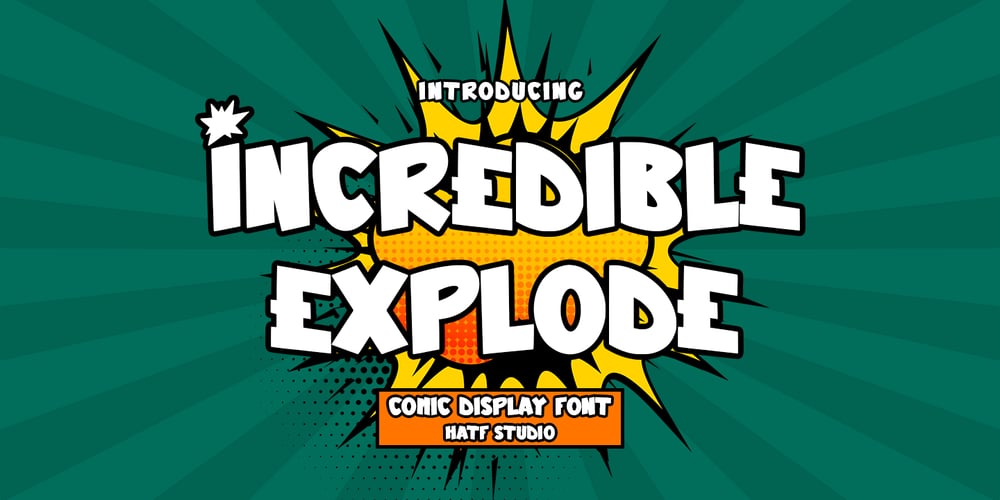
Incredible Explode Font Family was designed by Asep Rendi and published by Hatftype. Incredible Explode contains 1 styles and family package options. Is a Comic Display Font with distinctive handwritten characters perfect for branding projects, logos, wedding designs, media posts, advertisements, product packaging, product designs, labels, photography, watermarks, invitations, stationery, and any project who need handwritten dishes.Features :1. Uppercase & Lowercase2. Multilingual support3. Number4. Symbol5. Punctuation6. Support in Mac and Windows OS 7. Support in design applicationI really hope you enjoy it.